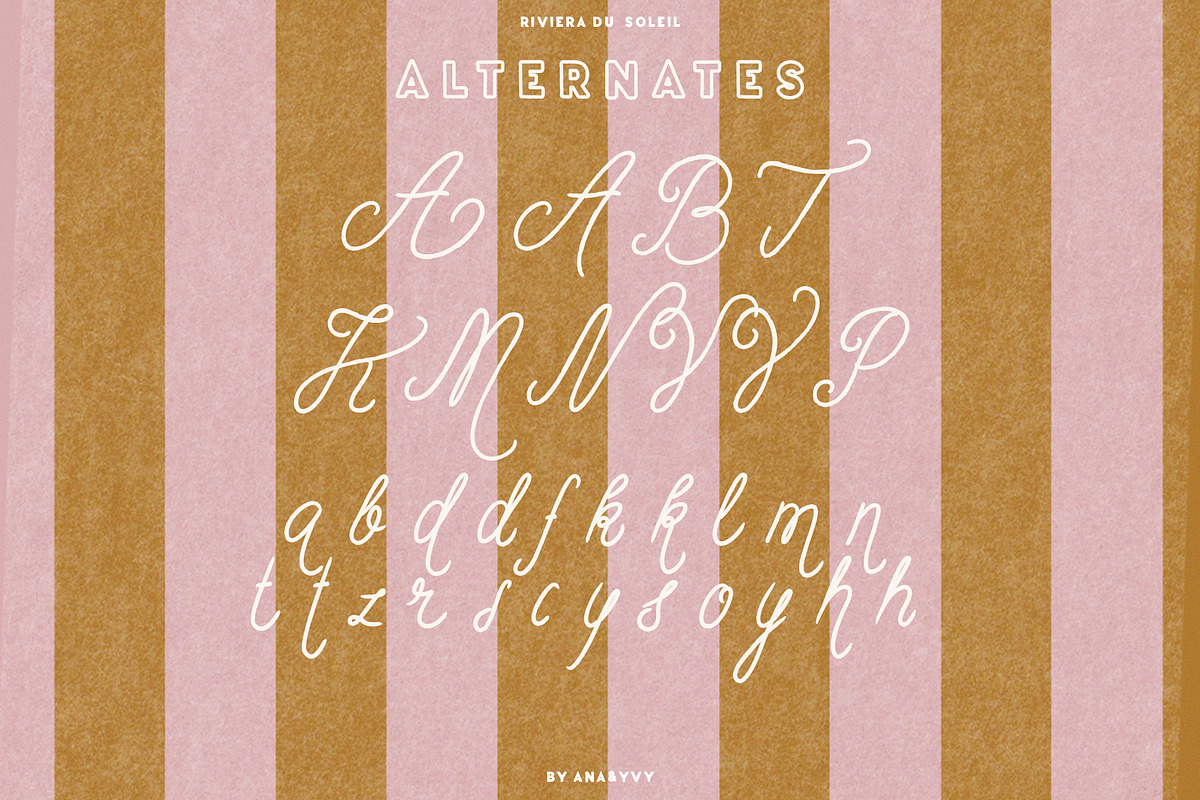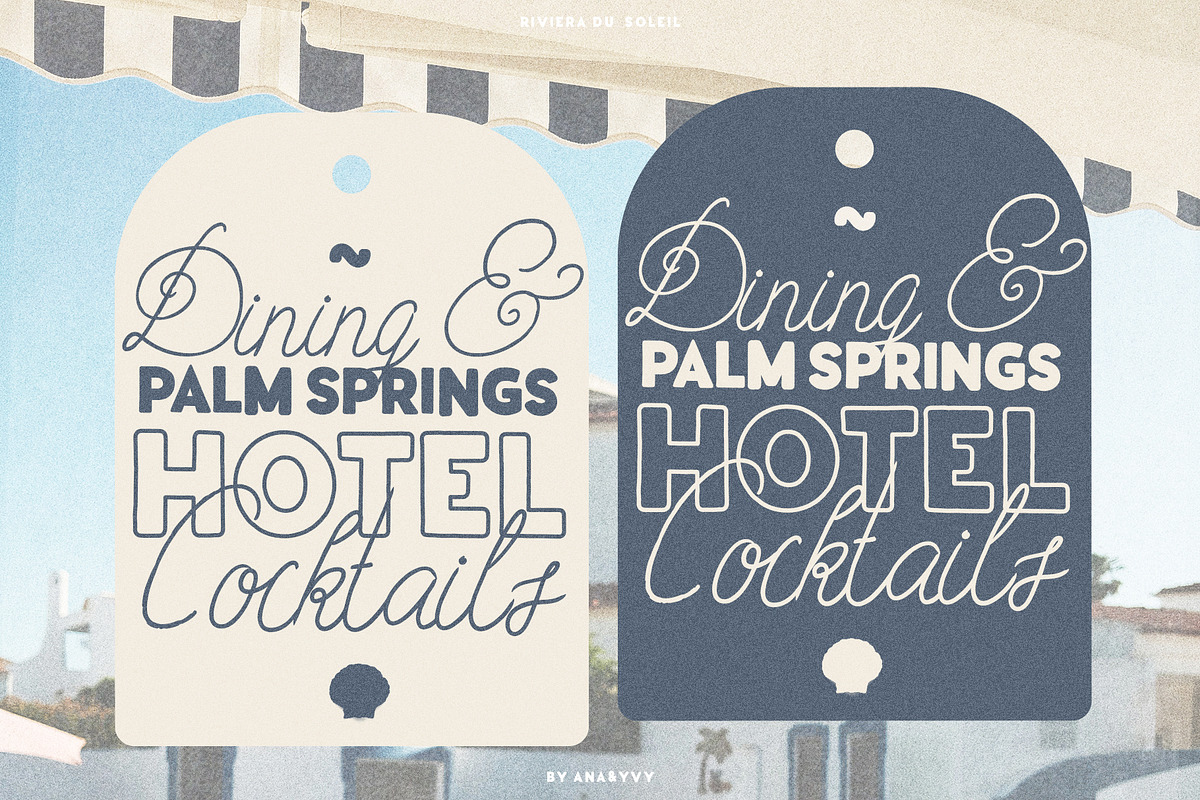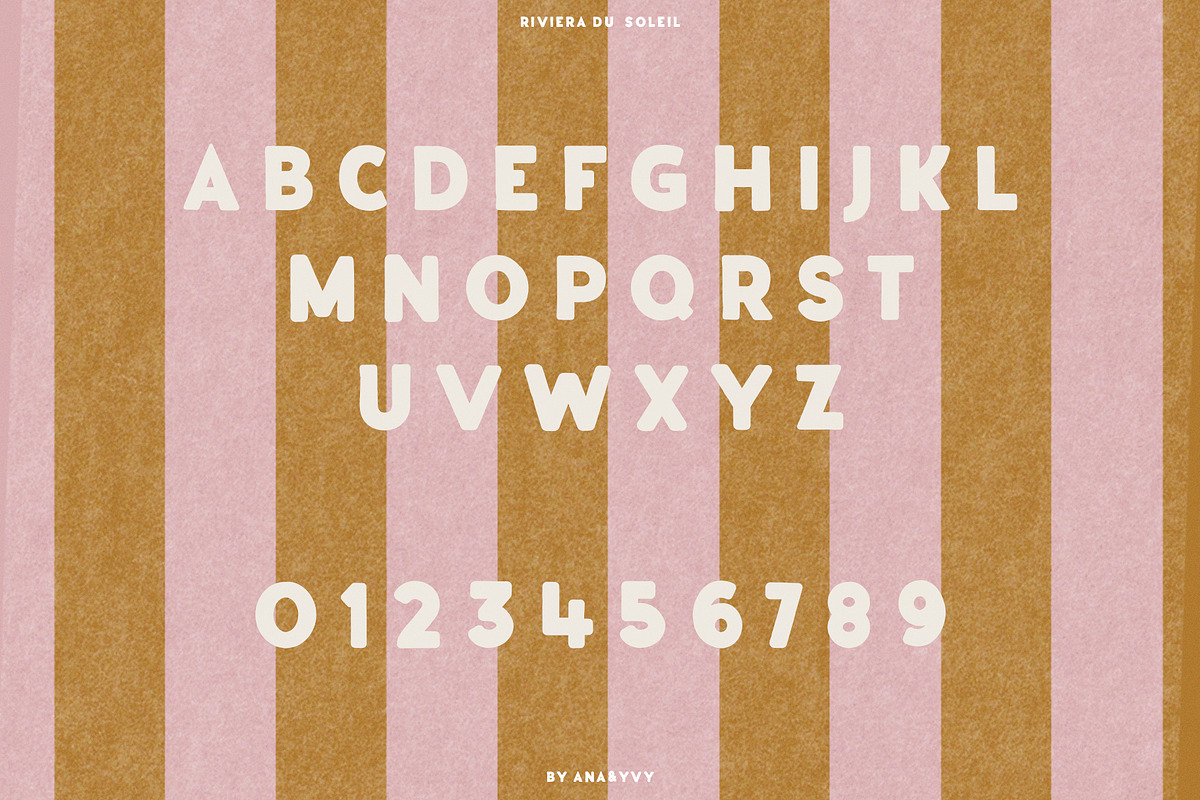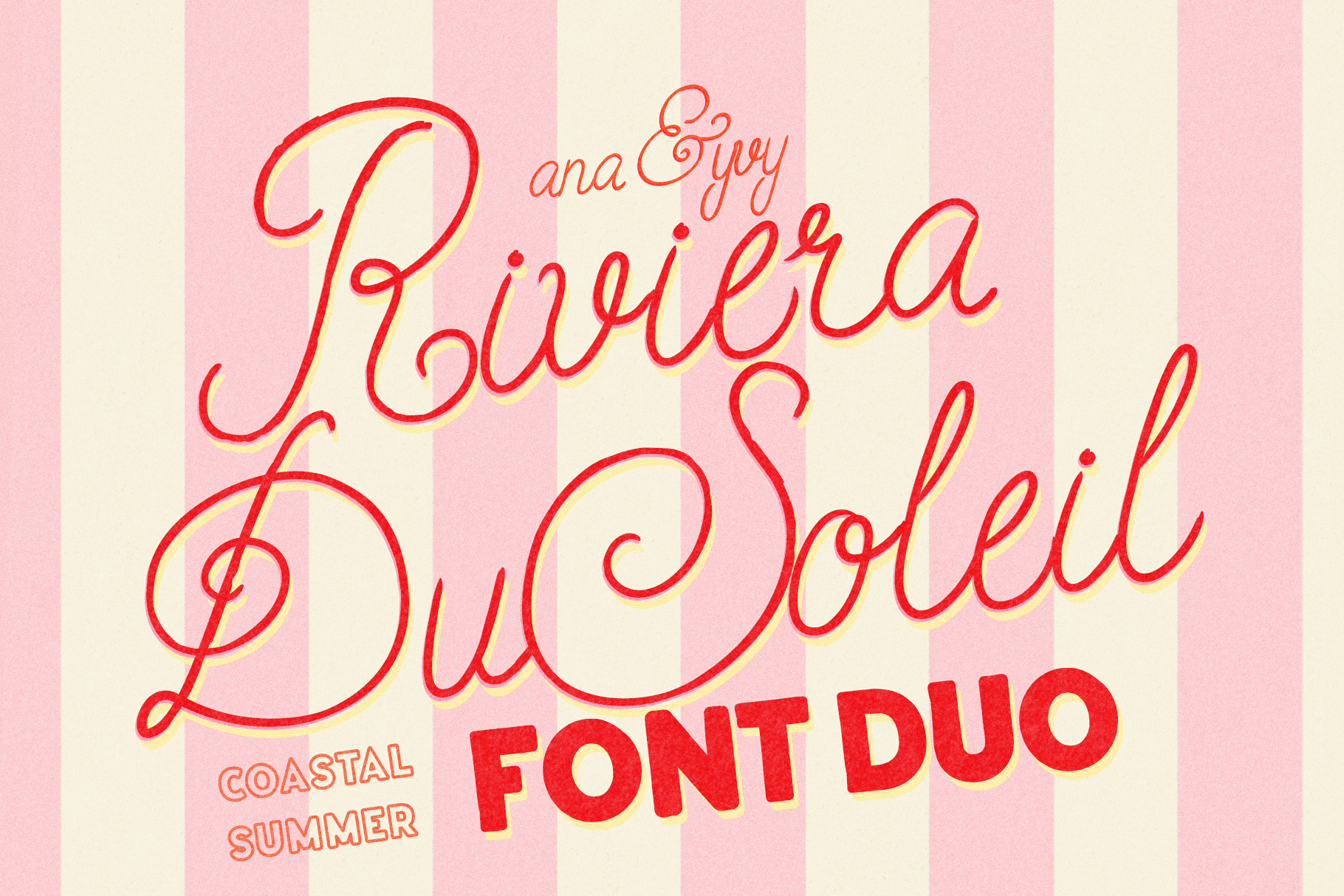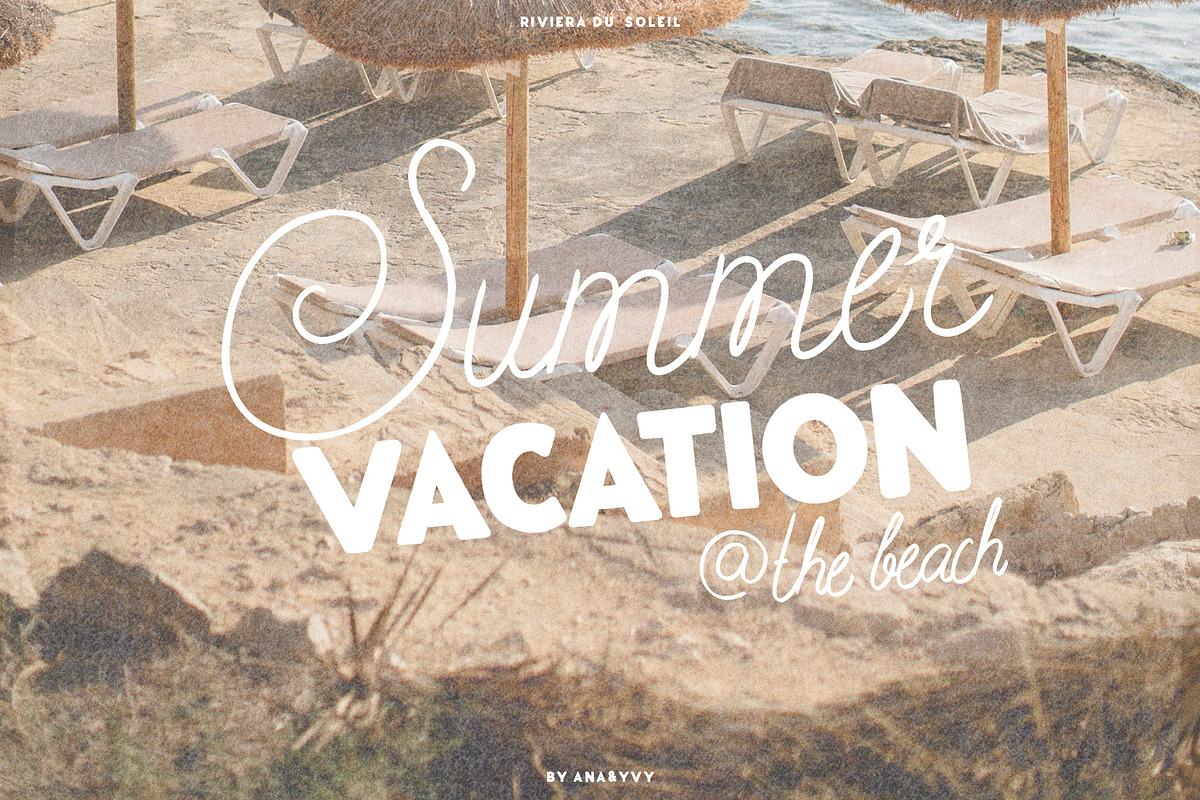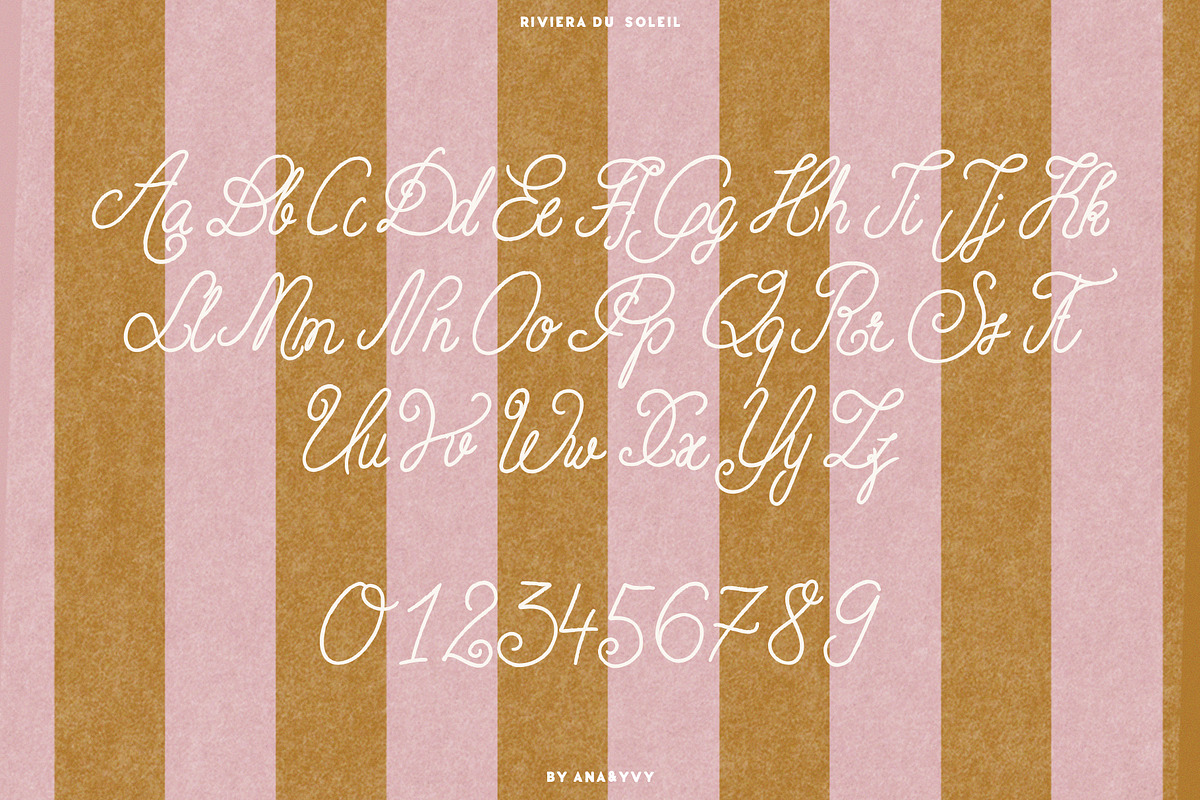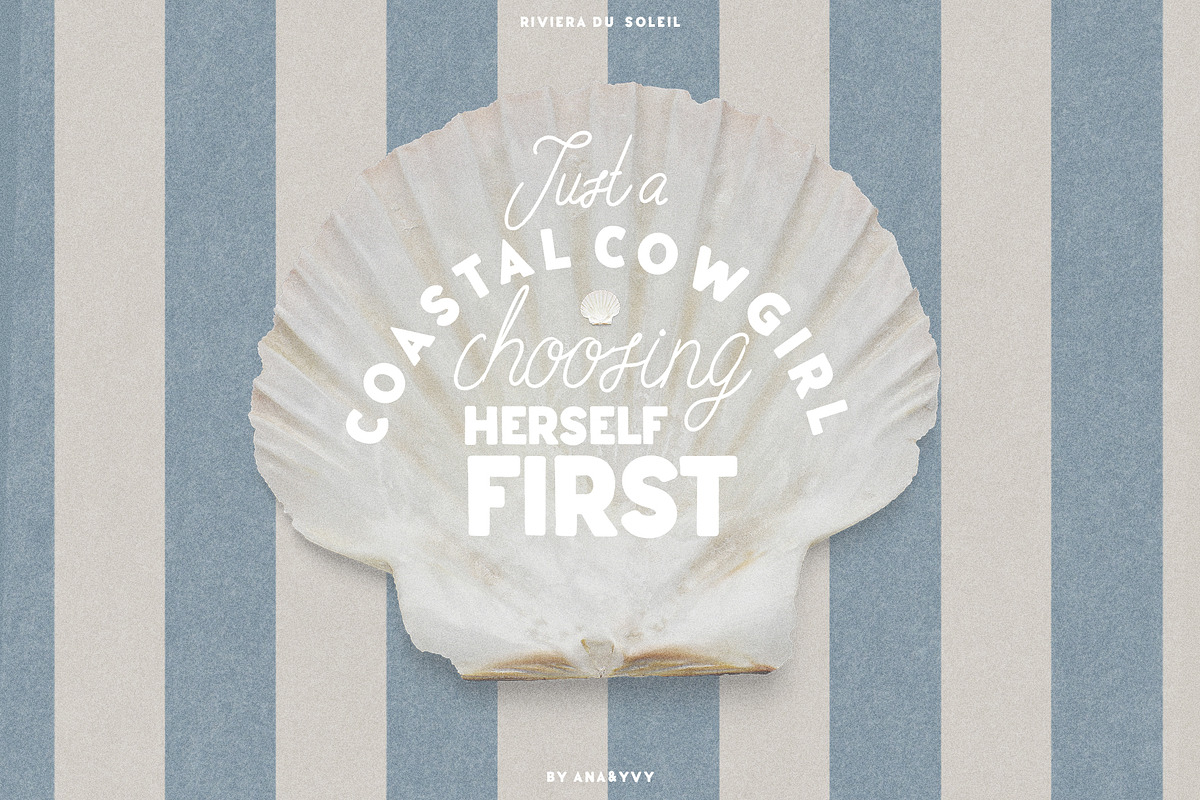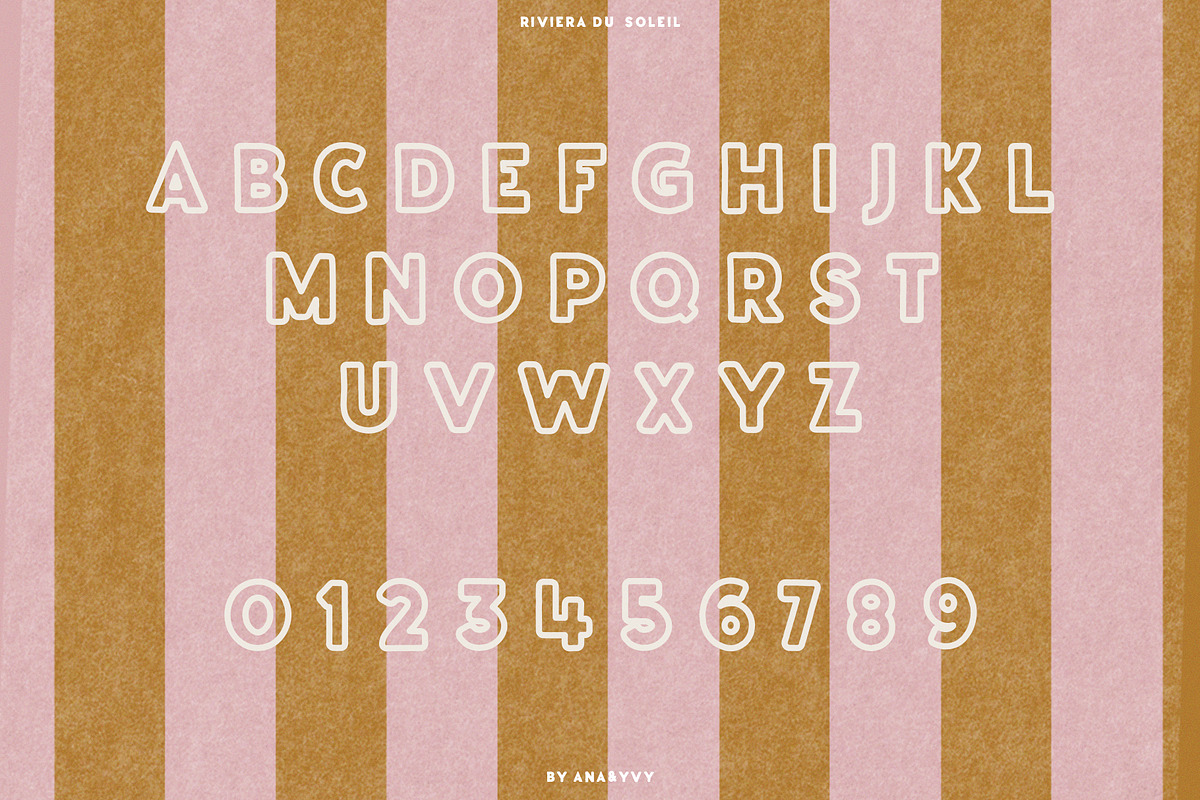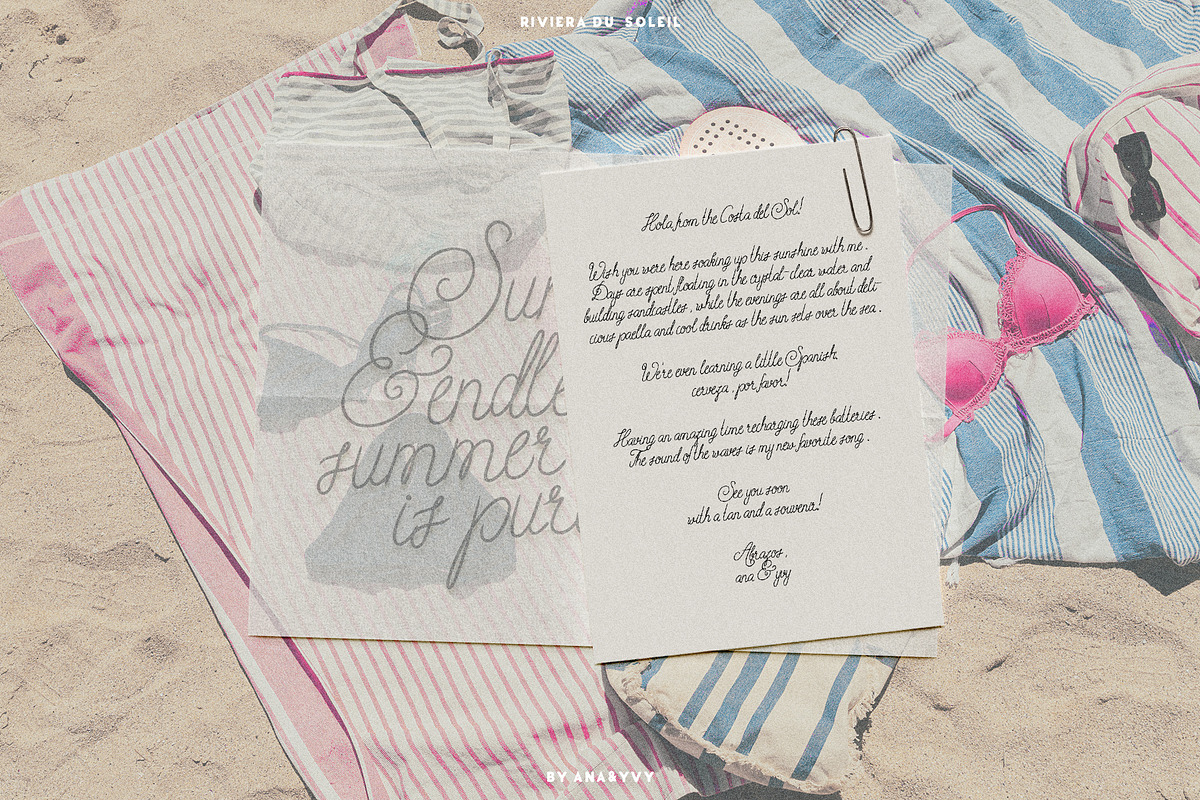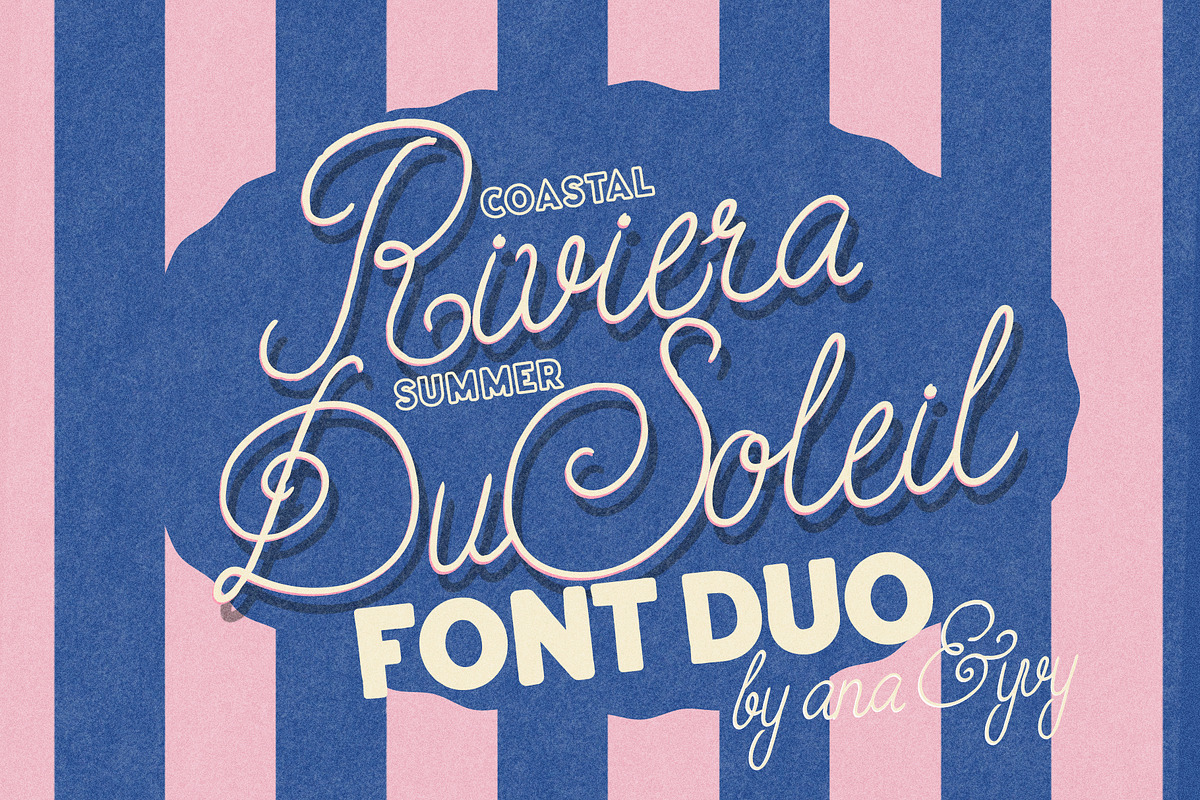
Riviera Du Soleil Font Duo
Riviera Du Soleil sparkles summer into your design! A new font duo inspired by 50s retro signs and nostalgic summer vacation.
This font duo comes as a regular handwritten and a sans serif all caps font. The handwritten script with curly and attention attracting caps combined with a hand made and slightly irregular all caps sans brings a unique and tailored look to every design project.
Riviera Du Soleil is just perfect for retro poster designs, vintage inspired quote designs, European summer vacation branding and more.
Riviera Du Soleil is Multilingual, comes with alternates and is handmade ♥
Multilanguage support.